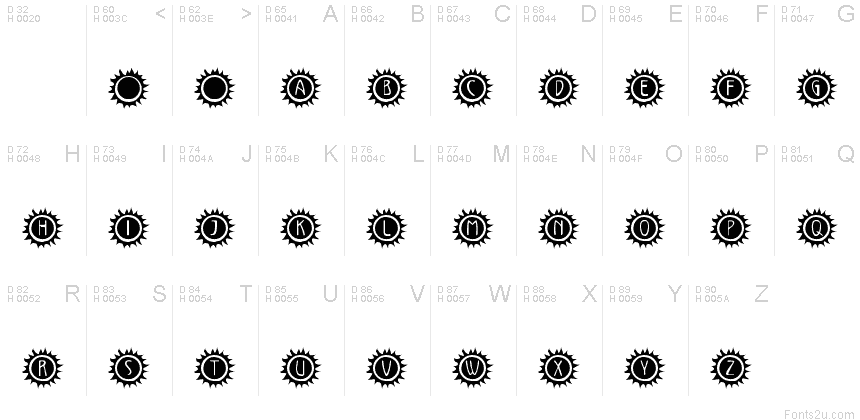
KR California Sun
KR California Sun by Kat is a free sunburst display font with a cheerful, early-web novelty feel. The letters sit inside dark roundels ringed by sharp rays, so the alphabet reads like a set of little suns or seal-like badges rather than plain display lettering.
That makes it a natural fit for retro posters, summer event flyers, scrapbook titles, kids’ craft labels, and playful website headers, where each letter can work almost like an emblem. As a free font, it also suits short cover lines, monograms, and title cards because the circular sun motif gives even a single initial a complete, self-contained mark.